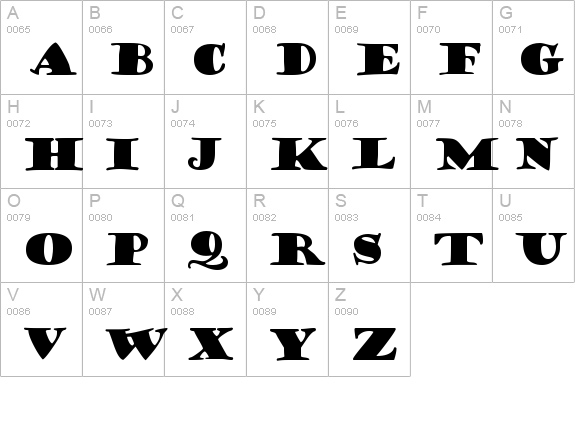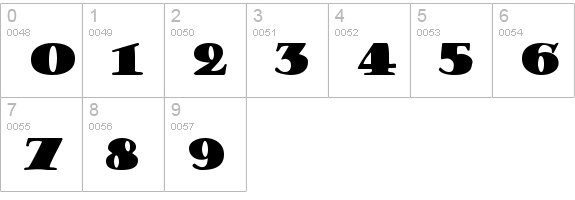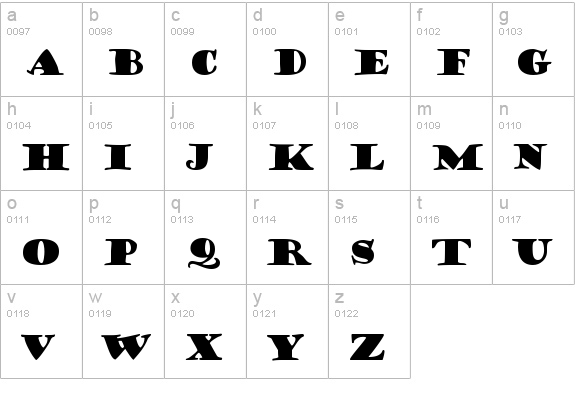
Hermann Bold Font Details
Hermann Bold is a strong, high-contrast variant in the Hermann typeface family \xE2\x80\x94 well suited to headlines, attention-grabbing titles, and strong calls-to-action.
Introducing Hermann Bold font - a stunning and versatile typeface that exudes elegance and sophistication. With its bold and commanding presence, Hermann Bold is perfect for making a statement in any design project. This versatile font is ideal for headlines, logos, branding, and more, adding a touch of modernity and style to your creations. What sets Hermann Bold font apart is its unique blend of classic and contemporary elements, making it a timeless choice for designers looking to elevate their work. The strong, bold strokes and clean lines of this font make it easily readable and impactful, ensuring that your message stands out. Best of all, Hermann Bold font is completely free to download at FontsMarket.com, making it accessible to designers of all levels. Whether you're a seasoned professional or just starting out, Hermann Bold font is a valuable addition to your font library. Download it today and see the difference it can make in your designs.